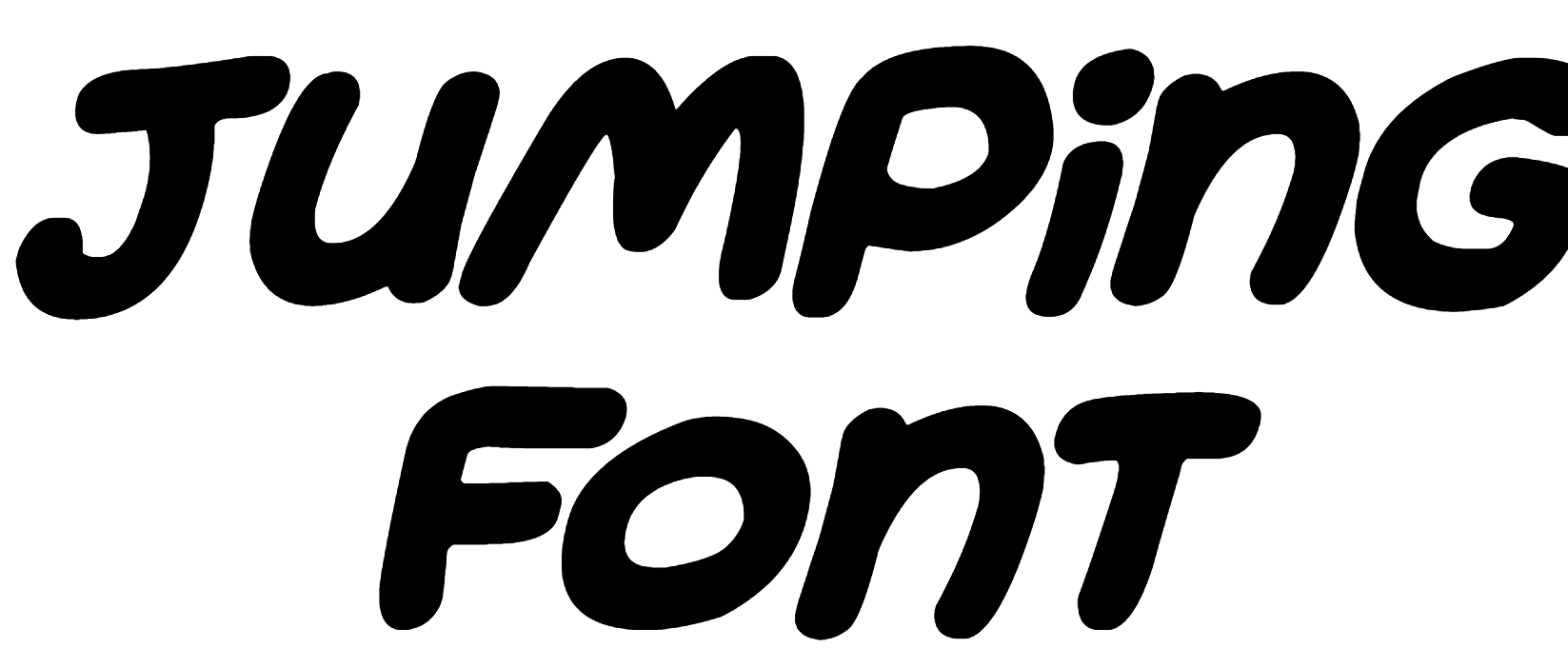
Jumping
Jumping is a comic font (2018). It has a cheerful, hand-drawn look that makes people smile before they even read the words. The free download includes two styles, and you can try every one of them with your own text in the preview above.
- Category: Comic font
- Glyphs: 81 in the Regular style
What You Can Type With Jumping
Jumping covers the full alphabet in upper and lowercase, plus all ten numbers, so you can set names, dates and prices without switching fonts. Common punctuation such as &, !, ? and @ is included as well. It doesn't include accented letters such as é or ñ, which makes it an English-only font.
Where Jumping Works Best
Designers usually reach for fonts like Jumping when they're making comic strips, speech bubbles and playful headings. Its lowercase letters are tall compared to the capitals, which keeps it readable at smaller sizes. Cartoon fonts are great for short, fun lines. If you place it over a busy photo, add a thick outline or a drop shadow so it stays readable. Because the family has more than one style, you can mix them in a single design for headings, subheadings and highlights.
Does Jumping support accented letters?
No. Jumping has no accented letters such as é, ñ or ü, so it's best for English text.